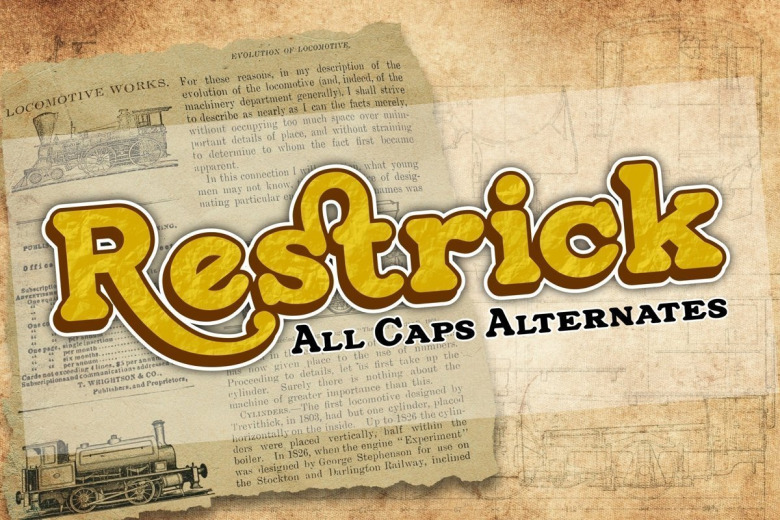
Restrick Font
Restrick is a strong display font. uses curved corners for flexible use on a variety of media displays. This font is very suitable for use as a headline in a newspaper, poster, or magazine. This font is available in regular and italic format.